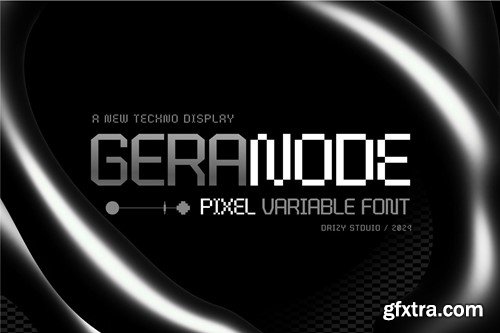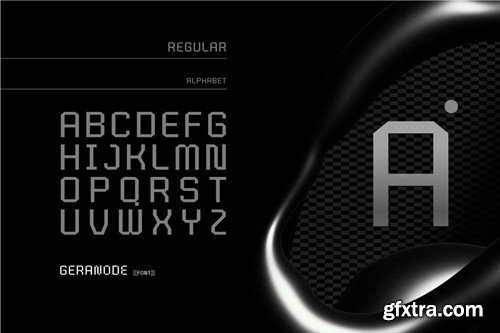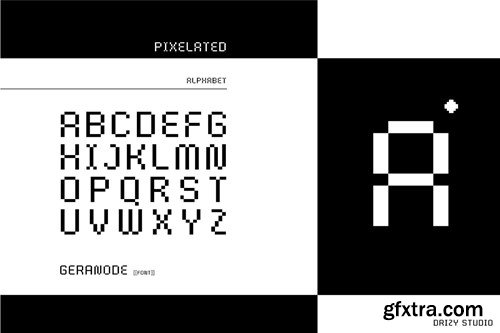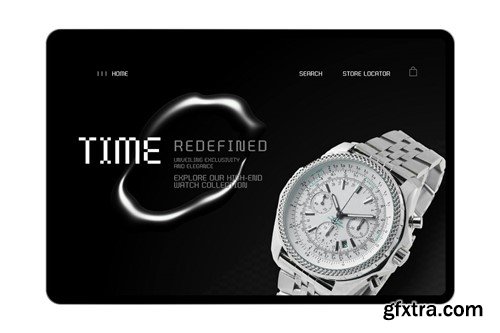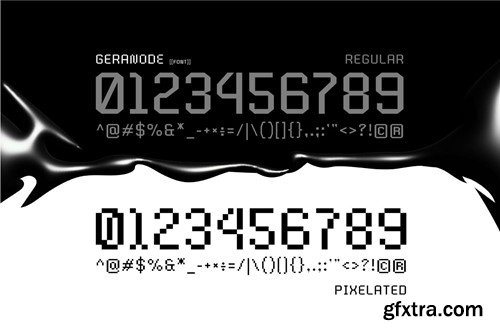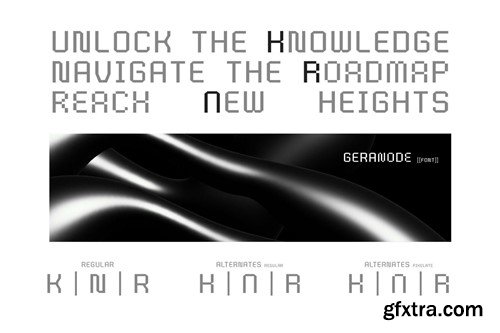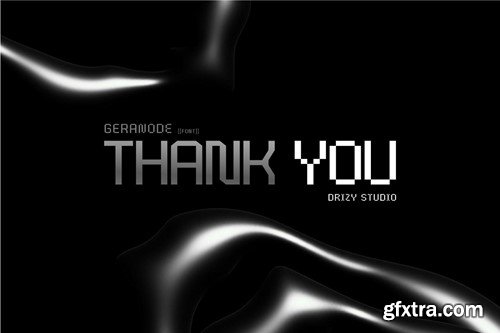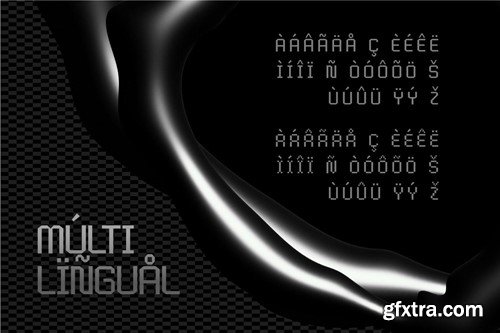
Geranode - Techno Display Pixel Font
Geranode - Techno Display Pixel Font Introducing Geranode, a cutting-edge Techno Display Pixel Font designed to elevate your digital projects with a collide - experimental and dynamic aesthetic. Crafted with precision and innovation, Geranode is the perfect fusion of technology and style, making it an ideal choice for those seeking a modern and impactful typeface. Geranode features: Character Set Variable (Regular & Pixelated) Punctuation & Numbers Multilingual Alternate File Included: OTF, TTF, Variable TT Elevate and explore the design possibilities with this Pixel Font!